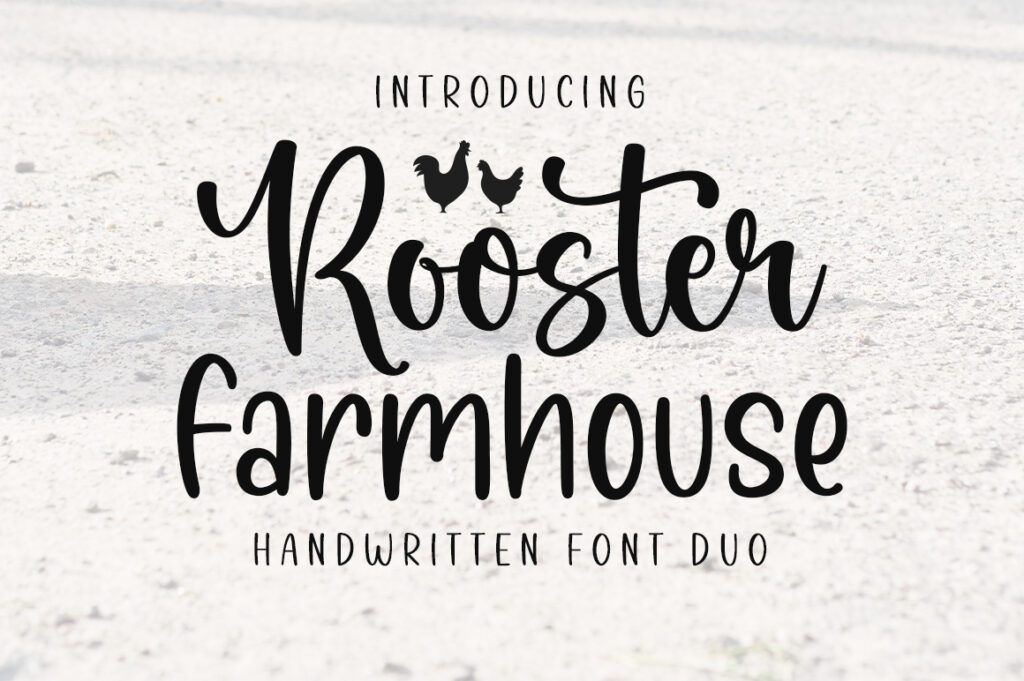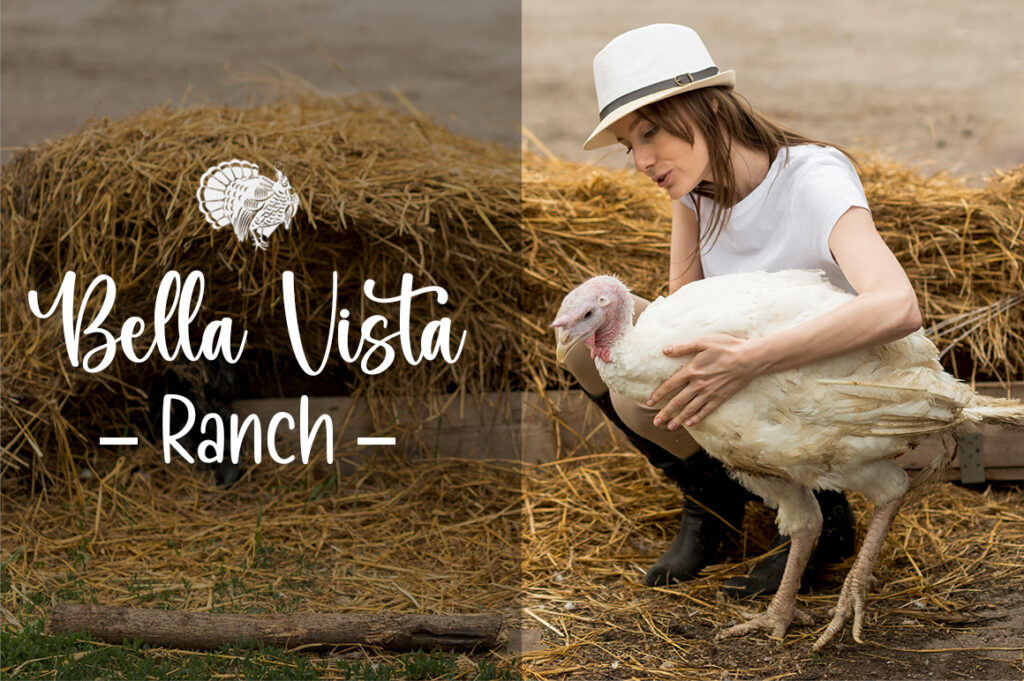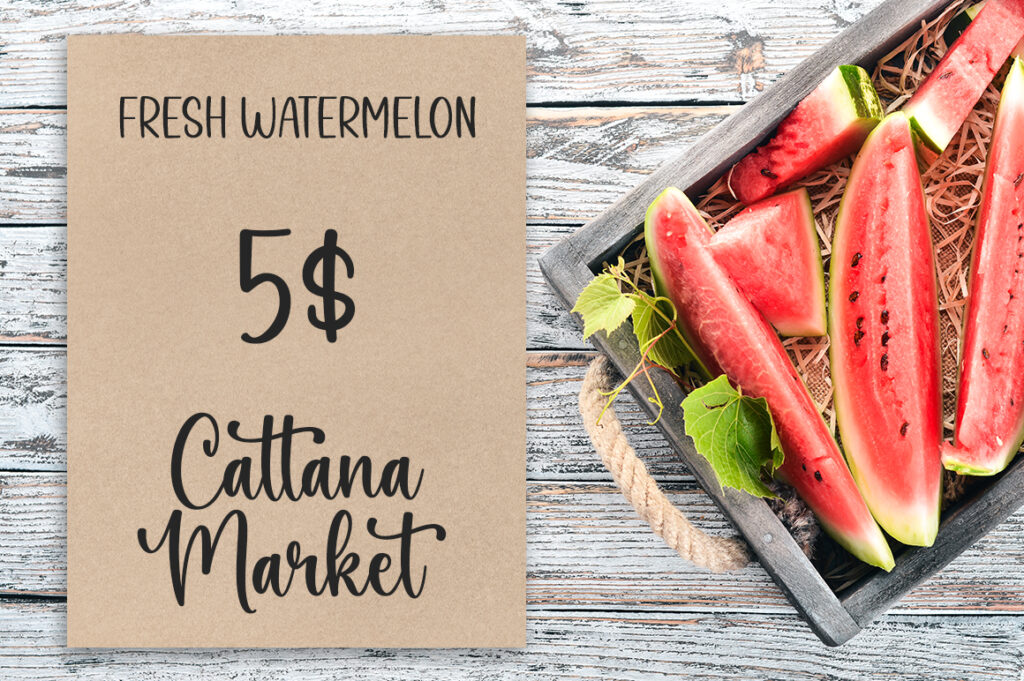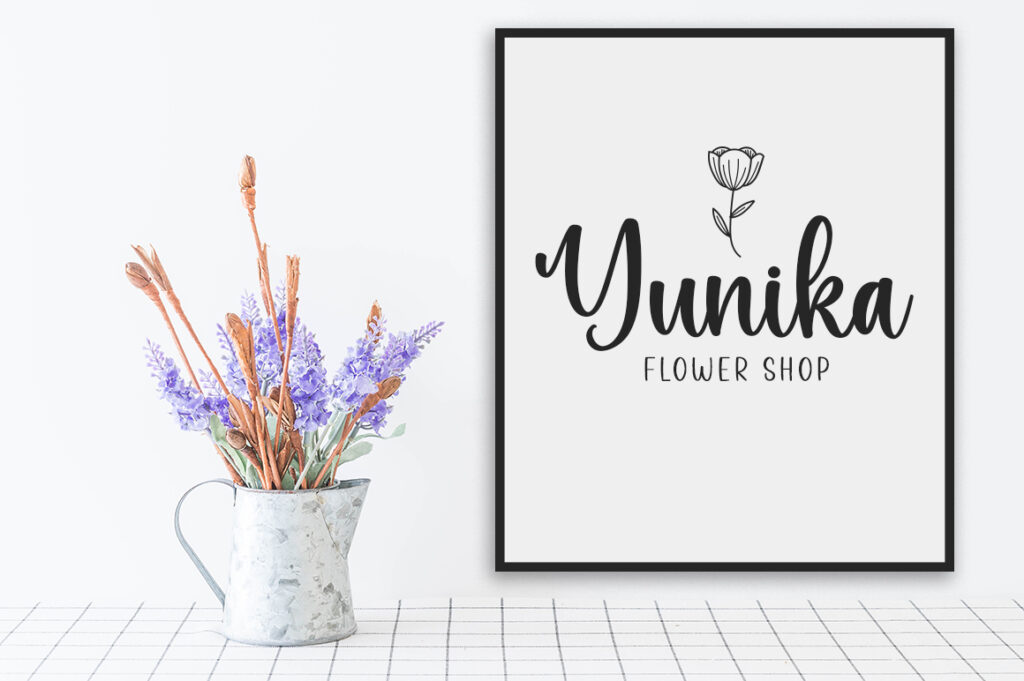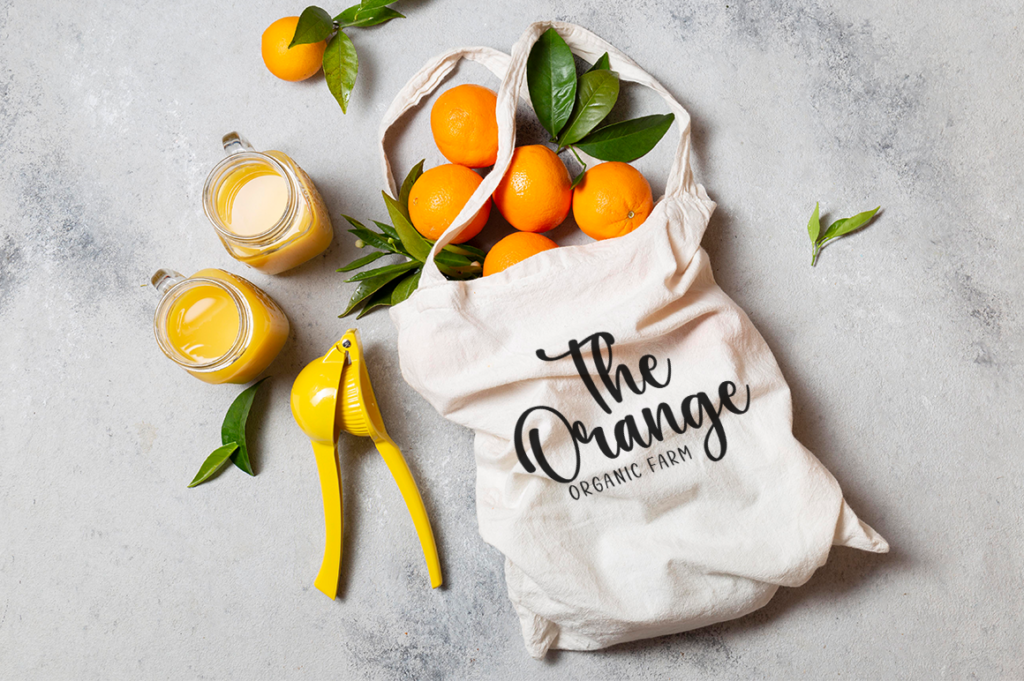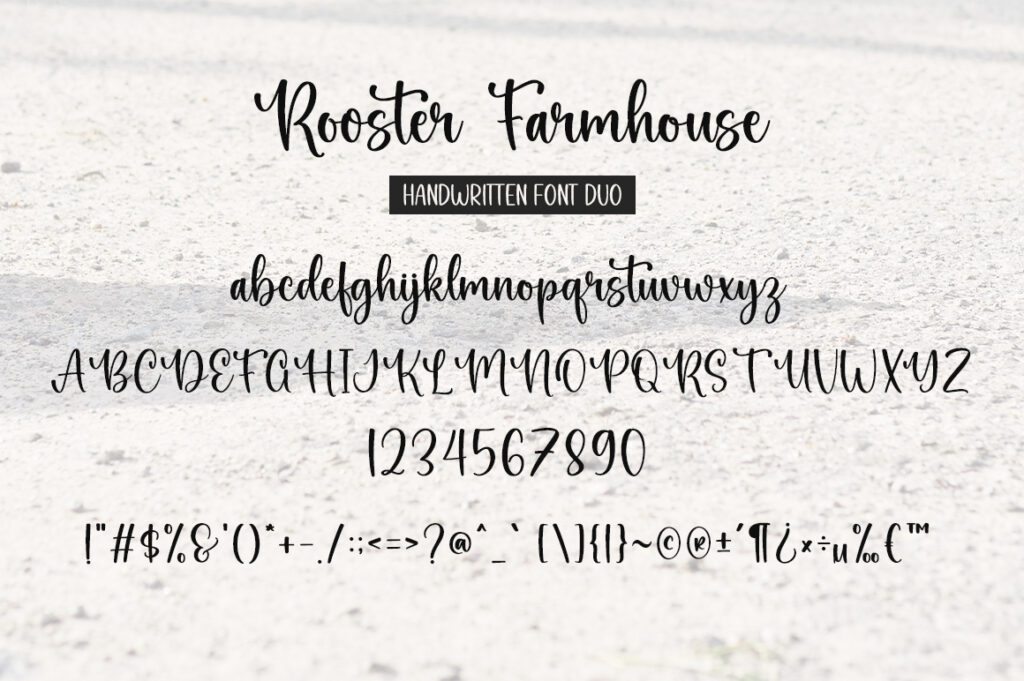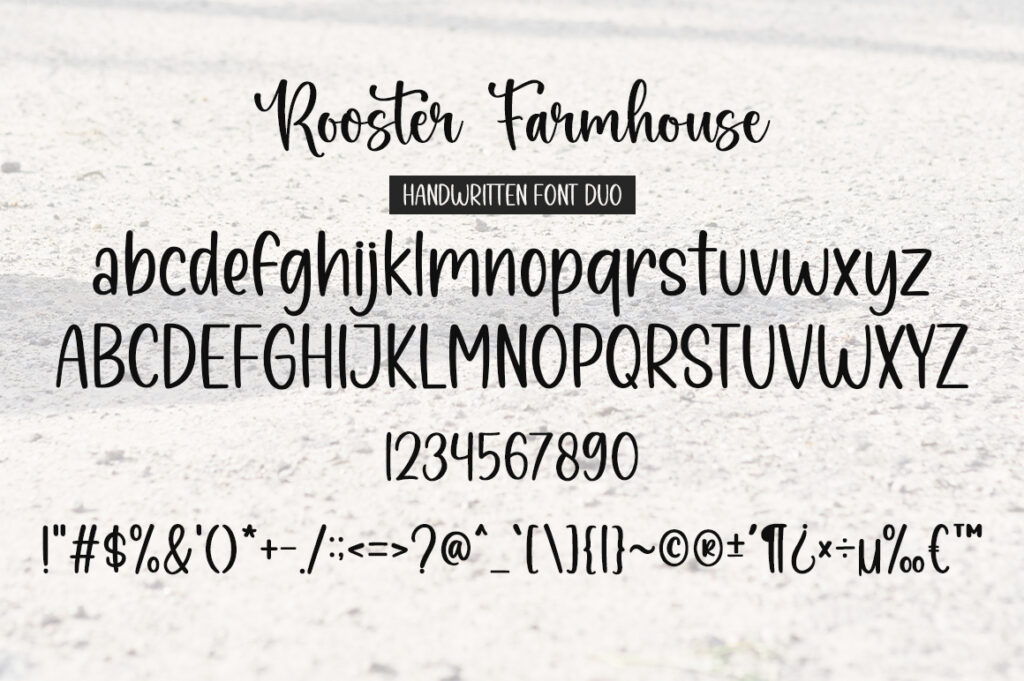
Rooster Farmhouse is a delicate and friendly handwritten font duo. It has beautiful and well-balanced characters and as a result, it matches a wide pool of designs. Rooster Farmhouse is PUA encoded, which means you can access all of the glyphs and swashes with ease!